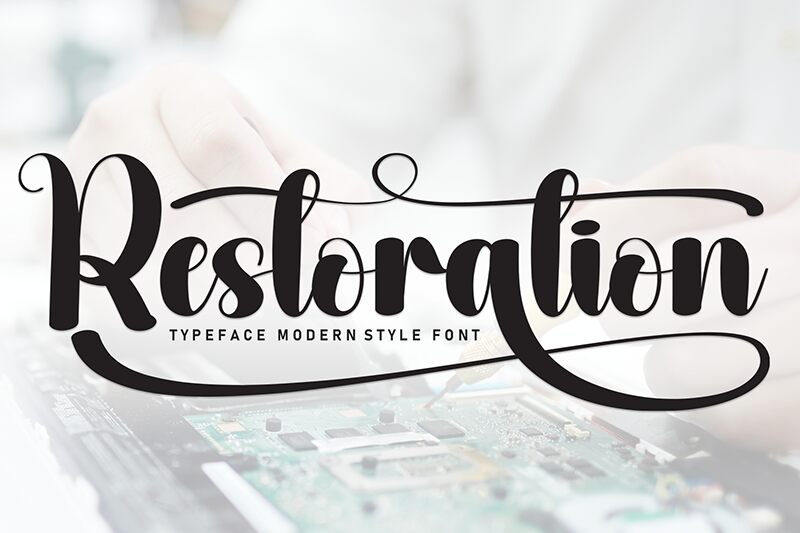
Restoration
Restoration font by Andi Moz is a bold brush font with expressive and decorative features. It exudes an elegant, flowing touch that feels both vintage-inspired and ornamental, making it immediately eye-catching. This fluid free brush font evokes an artistic edge, typical of hand-lettered signs and traditional storefronts.
Custom brand graphics, ribbons for packaging designs, book covers for thrillers or magic books novels; the options don’t end there! Use in invitations, quotes posters, headlines to get that custom flair without needing any skill whatsoever.